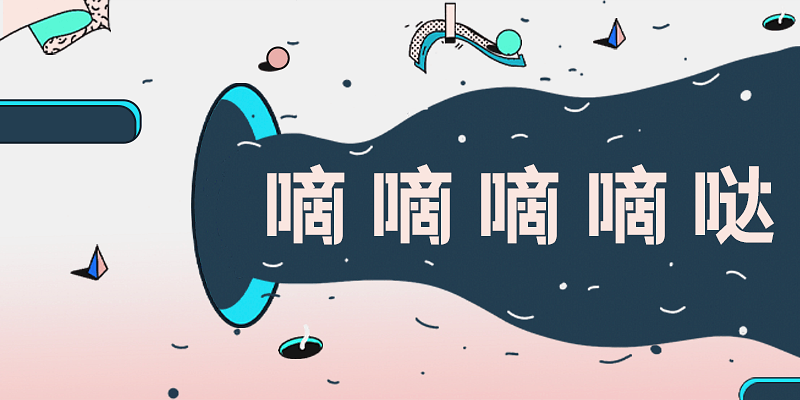
HelloFont AJ Gong Lu Ti Font Free Download is a modern and practical Chinese sans-serif typeface inspired by highway signage and traffic wayfinding systems. The name “Gong Lu Ti” (公路体) translates to “Highway Style,” and the font reflects this functional aesthetic with clear, bold strokes, generous spacing, and high legibility—making it ideal for signage, maps, UI/UX design, public information displays, and clean editorial layouts.
HelloFont AJ Gong Lu Ti Font Free Download features simplified Chinese characters along with a supporting Latin alphabet, enabling smooth bilingual use in global-facing projects. Its geometric structure and straightforward tone make it perfect for designers seeking a font that’s both utilitarian and professional, especially in contexts where readability and clarity come first.
Whether you're designing for transport systems, digital dashboards, or minimalist branding, this font ensures your message is delivered with impact and efficiency.
Simple, structured, and built for clarity—HelloFont AJ Gong Lu Ti is a reliable go-to when function meets clean, modern style in multilingual and highly legible design.